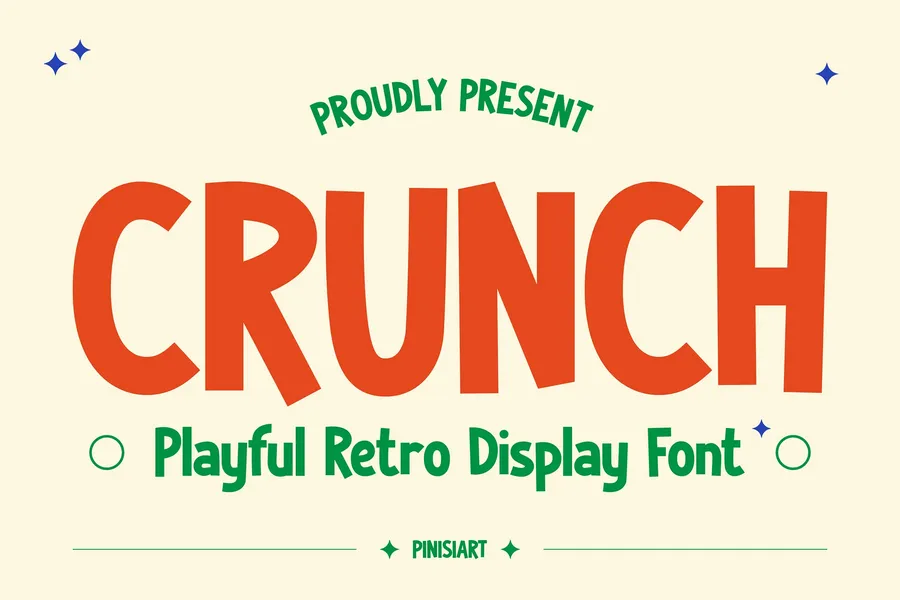
CRUNCH Playful Retro Display Font for Bold Headlines, Kids Packaging & Fun Branding
Kids Font CRUNCH is a playful retro display font that blends bold letterforms, rounded shapes, and energetic proportions. With its thick strokes and slightly geometric curves, CRUNCH delivers instant personality—perfect for designs that want to speak with joy, humor, and childhood nostalgia. The font’s clean readability makes it a practical choice for quirky headlines, food packaging, signage, and cartoon-style branding.
Whether you’re designing for a kids’ snack brand, a comic panel, or a family-friendly app interface, CRUNCH’s expressive design ensures your message lands with a pop. The letterforms are chunky and warm, designed to radiate friendly energy while still standing tall and clear on any medium.
Designed for attention-grabbing results, Kids Font CRUNCH is the ideal typeface for vibrant branding, children’s book covers, educational posters, and retro-inspired fast food promos. It sets the perfect tone for any project looking to evoke fun, excitement, and cheerful energy. If your goal is to create a friendly connection with audiences—especially young readers or families—CRUNCH will be your go-to headline hero.
Key Features :
Energetic Retro Feel Bring back the good times with bubbly, snack-worthy curves that recall vintage signage and fun food ads.
Kid-Friendly Yet Versatile CRUNCH is bold but soft, making it perfect for both playful branding and editorial work targeting families and children.
Bold Visual Identity Strong uppercase forms, friendly curves, and even spacing ensure your titles and logos are loud, clear, and unforgettable.